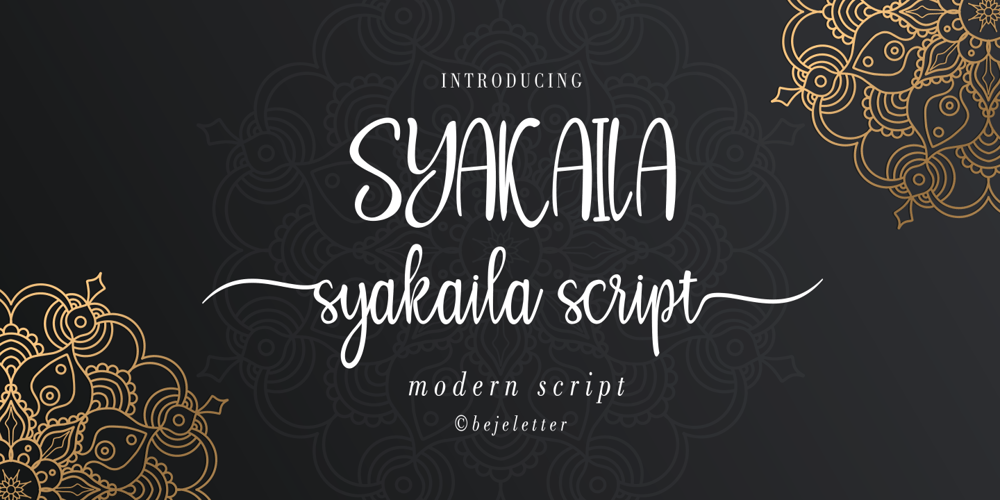
Syakaila Script Font Family was designed by Bejeletter and published by Bejeletter. Syakaila Script contains 2 styles and family package options. This is our newest product called Syakaila Script. The alternative characters were divided into several OpenType features such as Title and Swash. Syakaila can be used for wide ranges of application, such as wedding design, logo, invitations, social media posts, clothing, invitation, poster, cafe/resto sign, and many others.Features: Syakaila Script Regular Syakaila Script Italic OpenType features (Titling and Swash) Ligatures Multilingual glyphs – spread your message globally AÀÁÂÃÄÅCÇDÐEÈÉÊËIÌÍÎÏNÑOØÒÓÔÕÖUÙÜÚÛWYÝŸÆßÞþ Fonts: You can use any software that fonts can be used on it